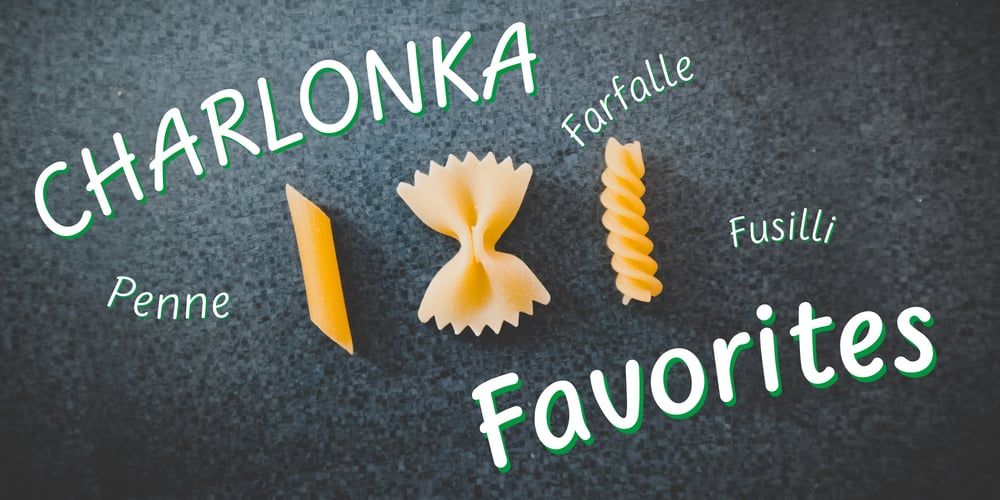
Charlonka Font Family was designed by Wolfram Pleger and published by PleasureFonts. Charlonka contains 5 styles and family package options. I‘d like to introduce “Charlonka“ to you. When my daughter finished high school, she wanted to get rid of her entire school stuff. So I saved a few sheets of her beautiful handwriting and promised her to create a typeface out of it. That‘s how the idea of Charlonka was born, a typeface family out of Charlotte‘s handwriting (by the way: that‘s her name). Some characters of Charlonka have extended crossbars, like in upper case A or H, and reduced descenders, like in lower case g or y.